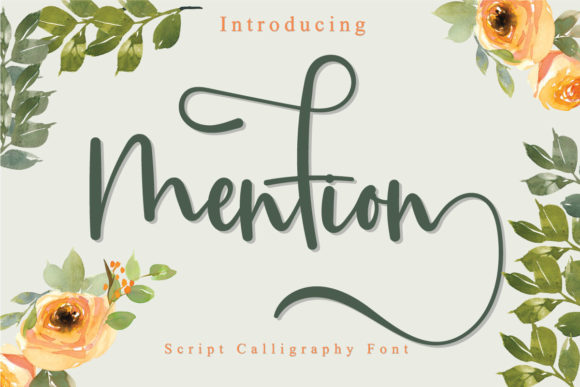
Behold, the Mention Font, a resplendent script font crafted by the visionary Arief Indra Pratama. This font is a stroke of genius, a harmonious blend of elegance and charm. Its graceful curves and sweeping strokes evoke a sense of timeless beauty, while its modern sensibility ensures it remains relevant in today's digital landscape. Mention is not just a font; it's an experience, an artistic journey that captivates your audience and leaves them spellbound.
Mention Font: The Epitome of Sophistication
Mention Font is a visual masterpiece that elevates your designs to new heights. Its intricate details and delicate flourishes add a touch of elegance and refinement to your creations, making them stand out from the ordinary. Whether you're designing a fashion website, crafting an invitation, or creating a captivating logo, Mention Font is your perfect companion. It's the key to unlocking a world of creativity and imagination, enabling you to express yourself in ways you never thought possible.
Fashionistas, rejoice! Mention Font is your secret weapon for creating a fashion website that exudes style and sophistication. Its flowing lines and enchanting curves capture the essence of haute couture, making it the perfect choice for showcasing your latest collections. Mention Font will make your designs shine, attracting the attention of fashion-forward shoppers and leaving them craving more.
Designers, unleash your creativity with Mention Font. Its versatility knows no bounds, making it the perfect choice for a wide range of design projects. Whether you're creating logos, invitations, or eye-catching social media posts, Mention Font will add a touch of magic to your work. Its ability to effortlessly blend with various design styles makes it a must-have tool for any designer looking to make a lasting impression.
Crafters, rejoice! Mention Font is your gateway to creating handmade masterpieces that will captivate all who see them. Its delicate strokes and intricate details are perfect for adding a personal touch to your crafts. Imagine creating stunning greeting cards, personalized invitations, or beautiful wall art with Mention Font. Your creations will be cherished for years to come, serving as a testament to your artistry and creativity.